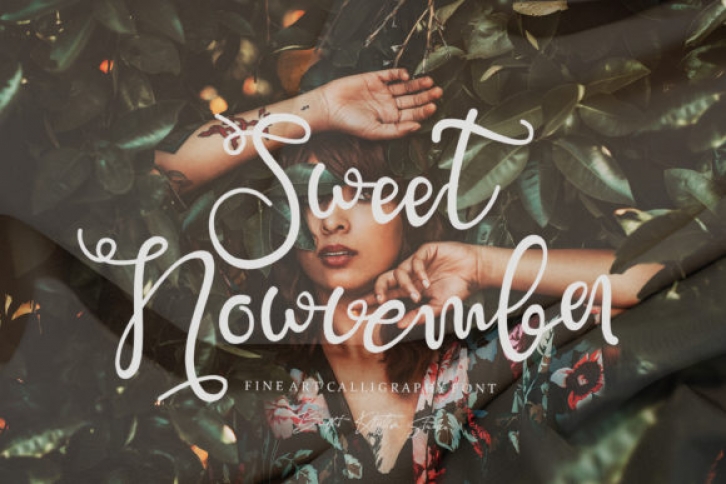
Sweet Nowvember is a lovely and joyful handwritten font, featuring characters that dance along the baseline. This versatile script font has a wide spectrum of applications ranging from greeting cards to headlines and is guaranteed to add a romantic feel to your next project.